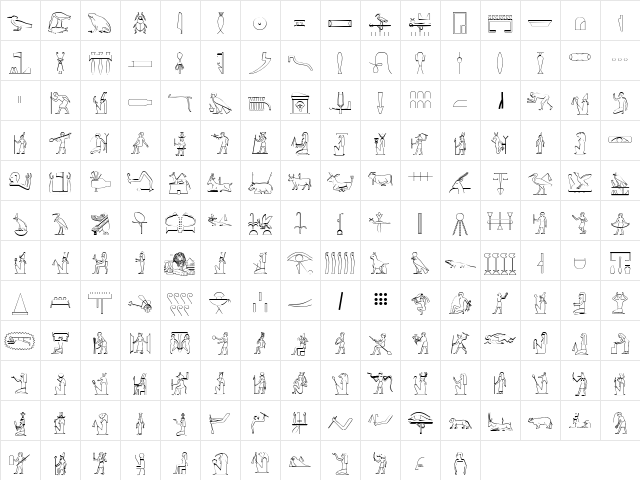
Complete The Nile Song Regular glyph index. Displaying only characters natively supported by The Nile Song Regular font.
The Nile Song is a composed and adaptable typeface that performs quietly and consistently across a wide range of design contexts.